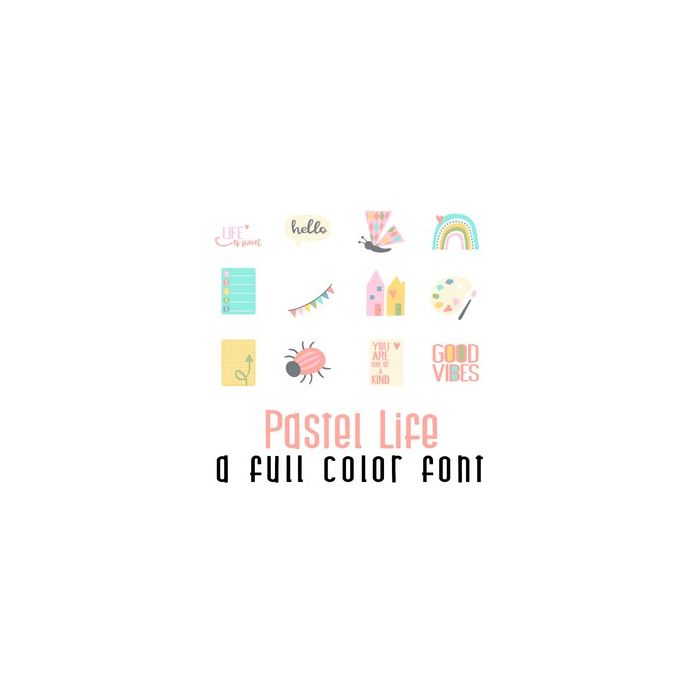
This adorable full-color doodlebat font features 26 furn Spring themed journaling images. Perfect for cards, crafts, gifts, decor, scrapbook pages, planner stickers, and more!